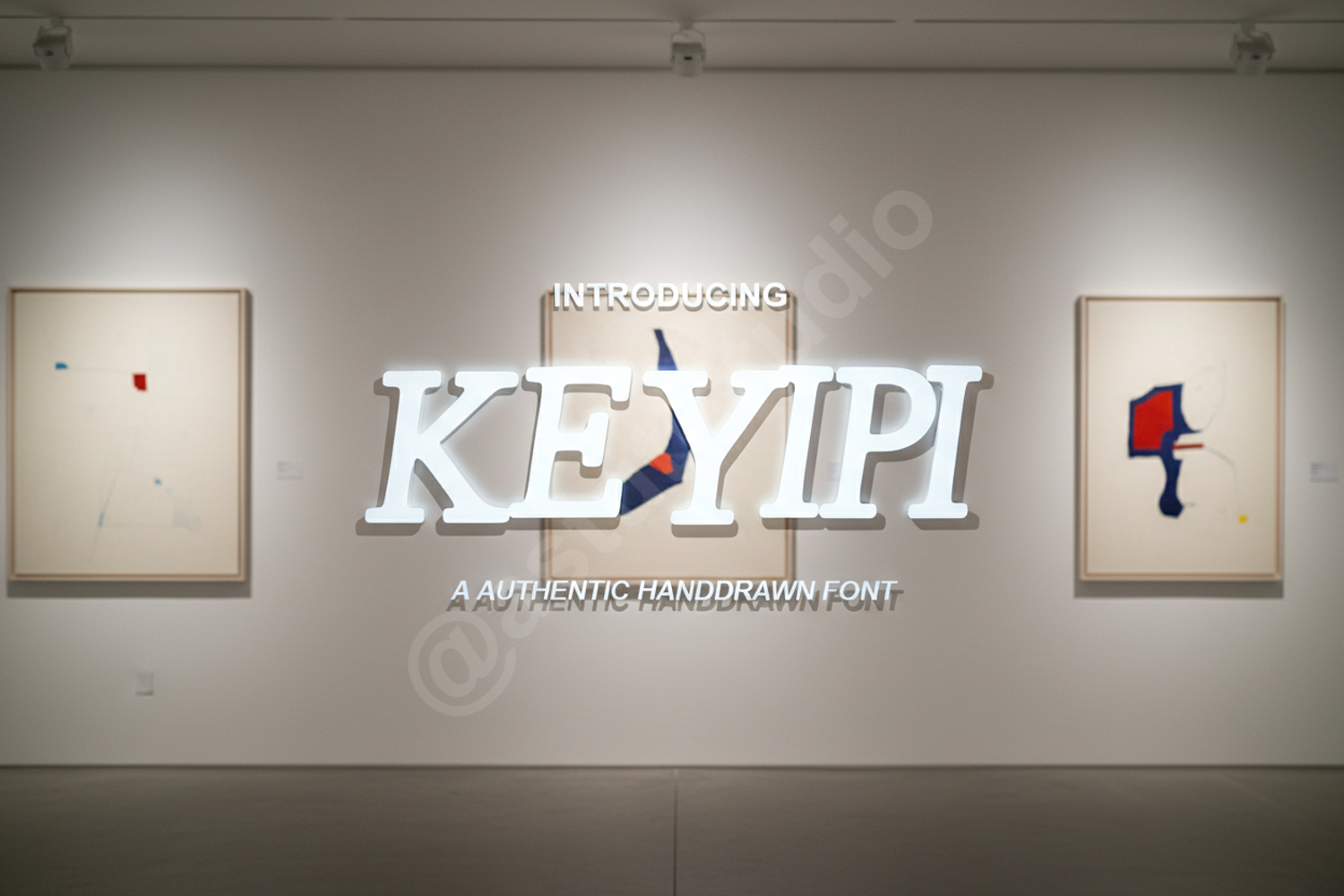
Keyipi - Elegant Modern Serif Display Font
Keyipi
Introduction:
Experience the perfect blend of sophistication and contemporary design with Keyipi. This premium serif font is meticulously crafted to bring a touch of luxury to your creative projects. With its clean lines and refined curves, Keyipi offers a timeless aesthetic that commands attention while maintaining effortless readability and professional appeal.
- Full set of uppercase and lowercase letters
- Comprehensive numbers and punctuation
- Multilingual character support
Optimized Use Cases:
- High-end Branding and Identity Design
- Elegant Wedding Invitations and Stationery
- Editorial Layouts and Magazine Headers
- Luxury Packaging and Product Labels
- Sophisticated Social Media Graphics
- Professional Business Cards and Signage